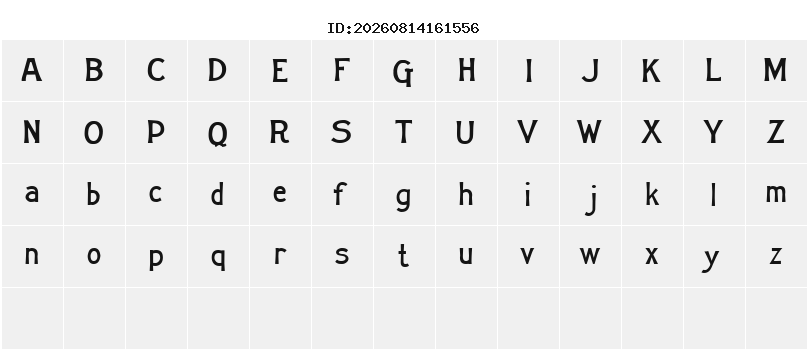
Stonehouse Demo Preview
• Font Name: Stonehouse Demo
• Full Font Name: Stonehouse Demo
About Stonehouse Demo.ttf
Stonehouse Demo.ttf is a modern, elegant sans-serif font designed for ultimate readability and visual harmony. Perfect for branding, headlines, web design, and print materials.